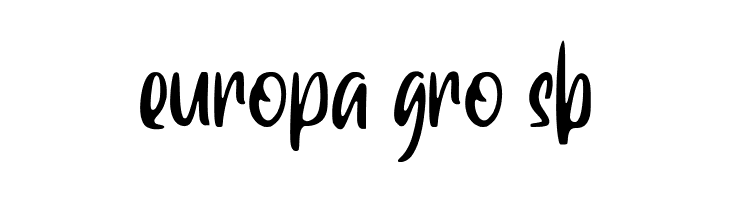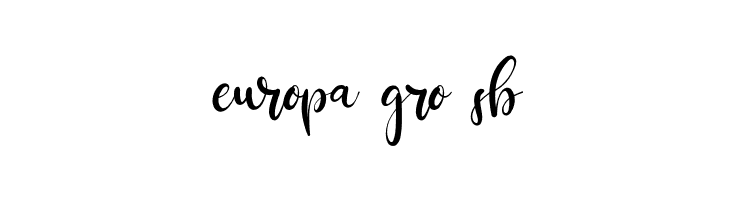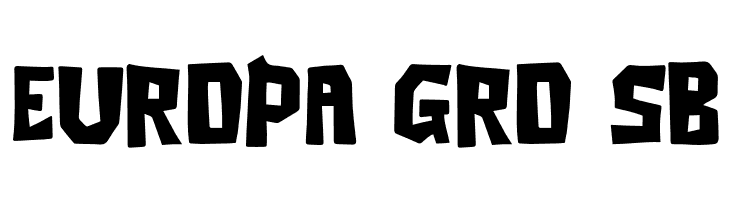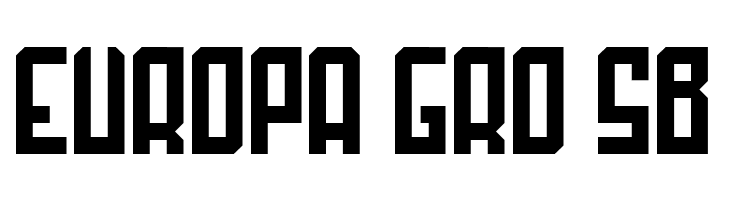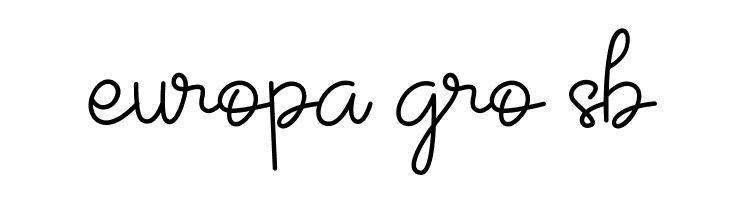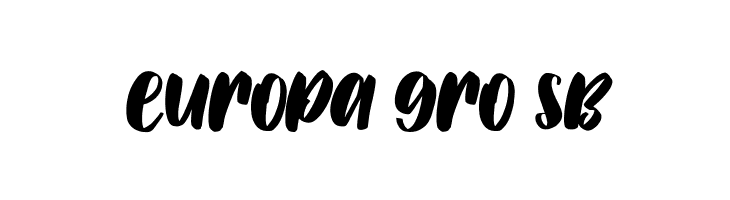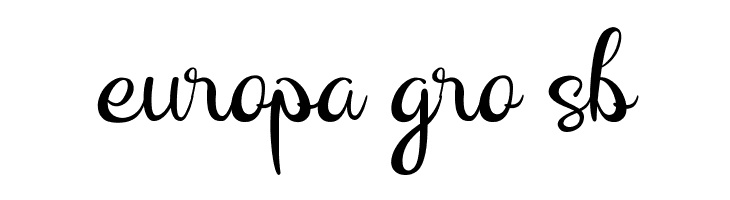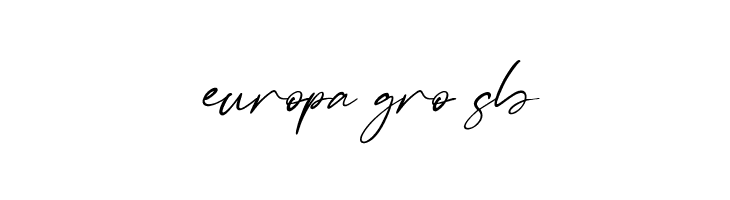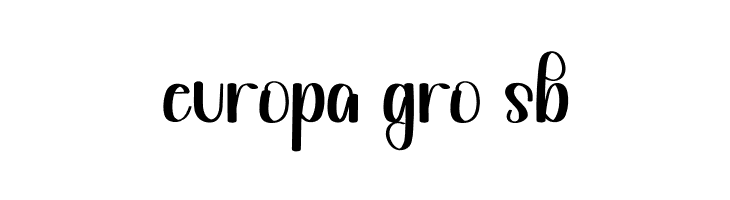
A bold, hollow, and layered font with a futuristic and dynamic style.
A bold, layered font with a retro 3D effect and geometric structure.
A playful, hand-drawn font with tall, narrow characters and a whimsical style.
A dynamic, cursive script font with fluid strokes and a handwritten feel.
A bold, hand-drawn font with energetic brush-like strokes.
A bold, decorative font with a 3D outline and shadow effect, perfect for modern designs.
A playful, casual handwritten font with an organic flow.
A bold, handwritten-style font with thick strokes and smooth curves.
Playful handwritten script font.
A bold, decorative font with a 3D effect and diagonal hatching.
A playful, handwritten script font with smooth curves and a lively style.
A playful, handwritten-style font with bold, flowing letters.
An elegant and flowing script font with graceful curves and intricate loops.
A bold, geometric font with a modern, industrial design.
A lively and elegant handwritten script with fluid, cursive strokes.
A playful and fluid script font with smooth, connected letterforms.
A playful, handwritten font with fluid, connected strokes and a casual vibe.
A flowing, cursive font with elegant, sweeping strokes.
A playful, handwritten font with fluid, connected letterforms.
A playful, handwritten font with smooth, flowing lines and rounded edges.
A whimsical and playful font with curly, decorative elements.
A flowing, cursive font with elegant, interconnected strokes and a modern calligraphic style.
A dynamic cursive font with elegant, flowing strokes and bold uppercase letters.
A bold, angular font with a geometric and hand-crafted appearance.
A lively, cursive font with elegant, flowing strokes and a handwritten style.
A tall, narrow font with a modern, professional style, ideal for impactful headlines.
A bold, playful handwritten font with thick strokes and rounded edges.
A bold, playful font with high contrast and whimsical flourishes.
A bold, italic script font with high contrast and ornate flourishes.
A bold, decorative font with a three-dimensional, geometric style.
A bold, three-dimensional font with geometric, shadowed letters.
Bold, decorative font with a 3D shadow effect and textured interior.
A bold, angular, and geometric font with a dynamic and edgy style.
A flowing, elegant script font with bold, expressive strokes.
A lively and expressive script font with elegant, flowing characters.